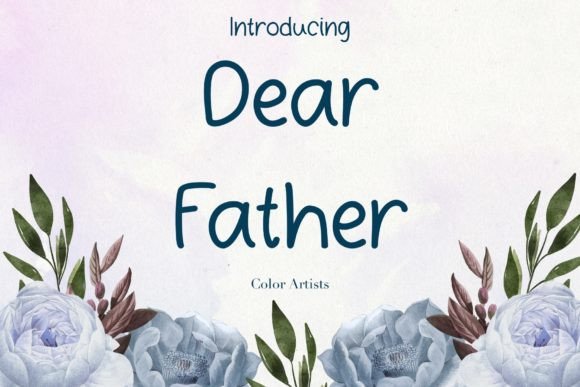
Embrace the Essence of Fatherhood with Dear Father Font: A Handcrafted Tribute to the Pillars of Strength
In the symphony of life, where love and guidance intertwine, there exists a font that captures the very essence of fatherhood: Dear Father Font. This meticulously crafted script, a creation of MyFontsShop, is a testament to the strength, wisdom, and unwavering tenderness that fathers embody.
Dear Father Font is not merely a collection of letters; it is an artistic expression of the paternal bond, a digital quill penning heartfelt messages and immortalizing cherished memories. With its graceful curves and sweeping strokes, this font exudes an aura of timeless elegance, whispering tales of love and devotion.
Immerse yourself in the world of Dear Father Font, where each character dances across the screen, carrying with it a profound sense of gratitude and admiration. Let the ink flow effortlessly from your fingertips as you craft personalized greeting cards, design heartwarming posters, or create digital keepsakes that celebrate the unwavering love of a father.